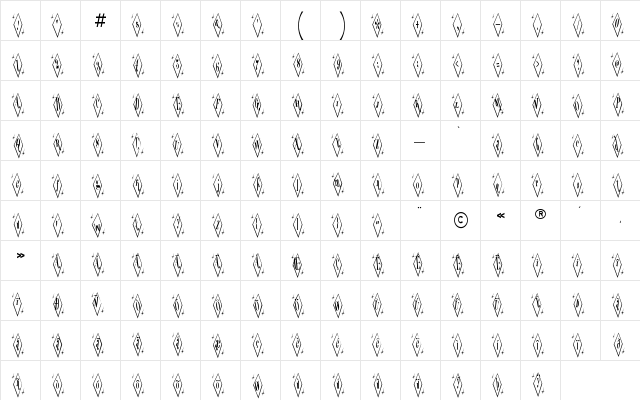
Terylene Top Regular
Design Context for Terylene Top Typeface
Terylene Top is a composed and adaptable typeface that performs quietly and consistently across a wide range of design contexts.